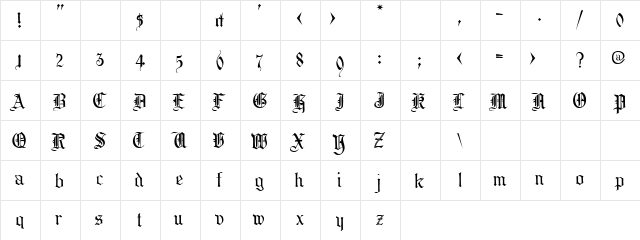
Collins Old English Regular
Design Context for Collins Old English Typeface
Collins Old English is a composed and adaptable typeface that performs quietly and consistently across a wide range of design contexts.